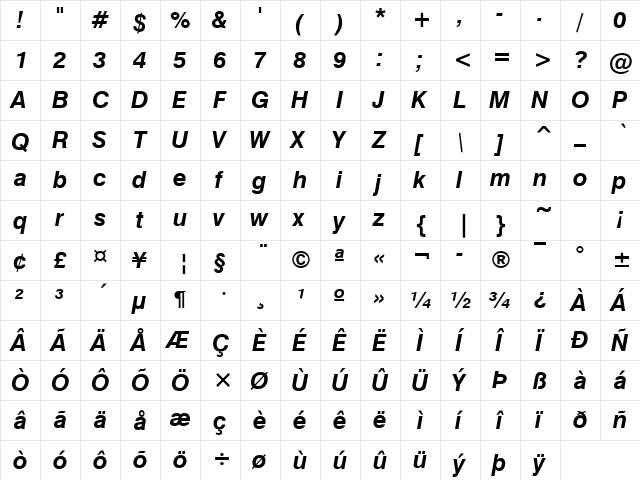
Geneva Bold Italic
Design Context for Geneva Typeface
Geneva offers clean, dependable letterforms without strong stylistic allegiance, making it a practical choice for designers who need flexibility. The slanted form adds forward momentum and visual energy. The heavy weight commands attention and anchors typographic hierarchies.
Pro Tip: Try Geneva for annotation and caption copy alongside an upright companion — the contrast in angle creates a dynamic but ordered typographic system.